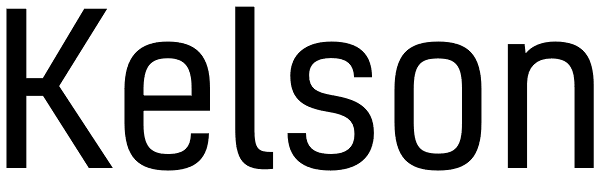
Kelson
Kelson is a project done for a graphic design agency in Brazil. They had a typeface, but the kerning, spacing, and some features were corrupted or not working very well. So what we’ve done was to improve the qualities and refine the shapes and the...